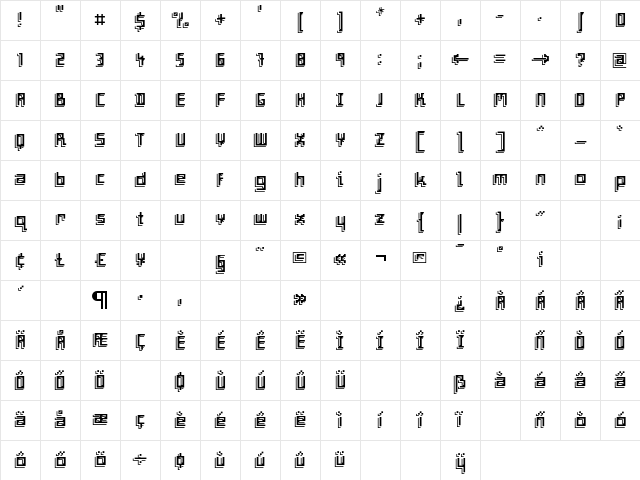
F2F FrontpageFour LT Std Regular
Designer: Alexander Branczyk
Design Context for F2F FrontpageFour LT Std
F2F FrontpageFour LT Std is a composed and adaptable typeface that performs quietly and consistently across a wide range of design contexts. Its slender proportions lend an understated elegance to any composition.